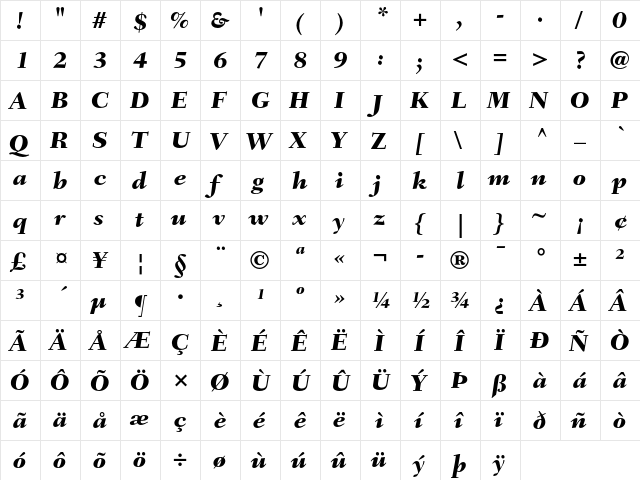
Fairfield LH 86 Heavy Italic
Design Context for Fairfield LH Typeface
Fairfield LH is a composed and adaptable typeface that performs quietly and consistently across a wide range of design contexts. The dynamic lean of this cut emphasises speed and emphasis in any layout.
Pro Tip: Use Fairfield LH for emphasis, pull quotes, and subheadings where its slanted energy can add rhythm to the layout.